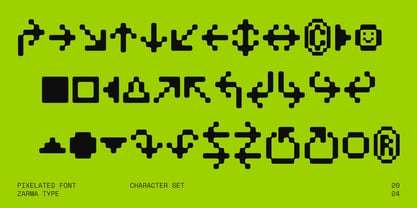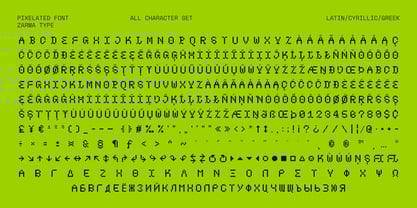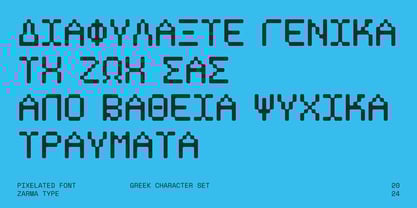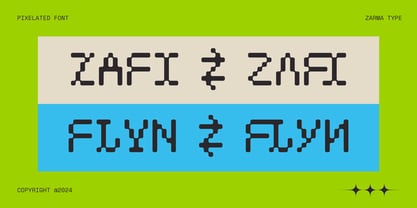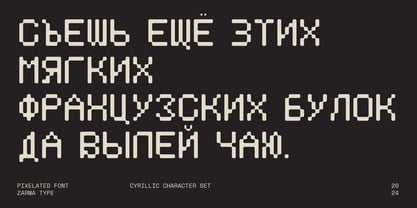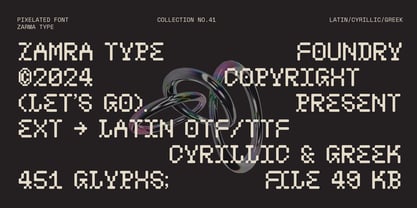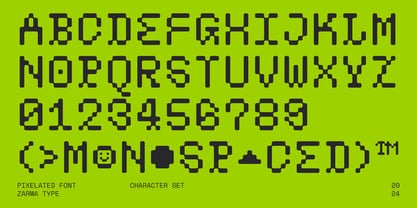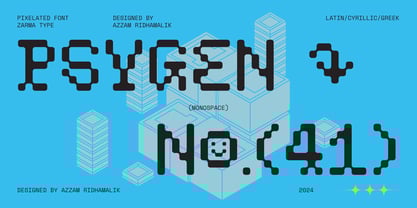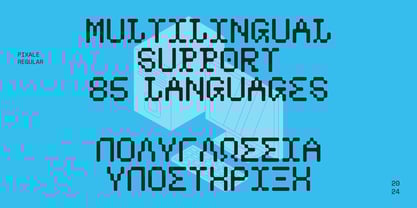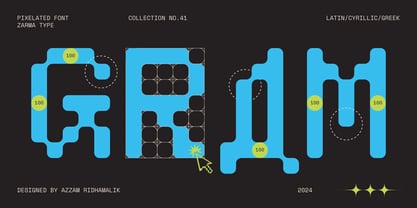
Psygen
by Azzam Ridhamalik
Psygen Font Family was designed by Azzam Ridhamalik and published by Azzam Ridhamalik. Psygen contains 1 styles.
Psygen Font is a bold and monospace pixel font designed to bring a contemporary edge to retro aesthetics. Perfectly tailored for digital creatives, Psygen offers versatility across various projects like gaming, branding, and digital media.
Key Features:
• Multilingual Support: Includes OpenType Latin Pro, Greek, and Cyrillic character sets.
• Versatile Application: Ideal for gaming UI, branding, social media, posters, and more.
• Monospace Font: Ensures uniform spacing and alignment, perfect for digital and creative designs.
• All Caps: Features uppercase letters with consistent geometric proportions for bold, impactful typography.
• Symbols & Arrows: Comes with unique symbols and directional arrows to elevate digital and creative projects.
• Contemporary Design: A modern take on pixelated fonts with a fresh aesthetic.
Psygen Font supports over 85+ languages, covering Latin, Greek, and Cyrillic scripts, with characters like Ч, Ψ, Ω, Φ, and many more. Whether you're creating logos for tech startups, designing retro-themed posters, or crafting gaming UIs, Psygen is your go-to choice for pixel-perfect typography.